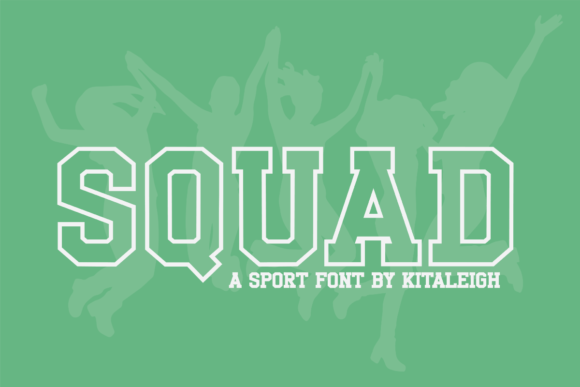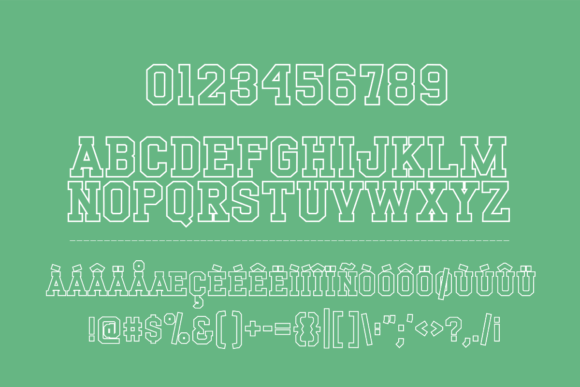
Squad Font
About the Squad Font
The wait is over! The incredible Squad Font is now available for your design toolkit. “Squad” is a bold, energetic sport font that exudes team spirit and athleticism. It’s a modern take on classic varsity lettering, offering a structured and clean design that’s perfect for sports branding, team logos, and any athletic-themed project. With its outline style and sharp edges, “Squad” is an ideal font to evoke the camaraderie, competition, and unity found in sports teams. The all-uppercase design is impactful and easily readable, ensuring your message stands out whether it’s on a banner, jersey, or promotional material. Squad supports a wide range of characters including numbers, punctuation, and accented letters, making it versatile for different languages and applications.
Squad Font Usage Examples